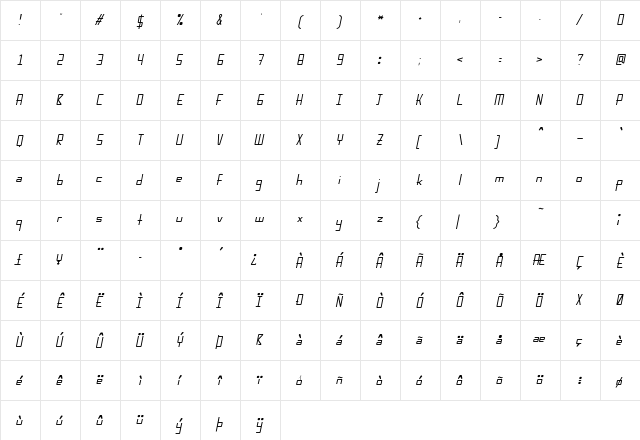
KarpowThin Italic Font Preview
Design Context for KarpowThin Typeface
KarpowThin offers clean, dependable letterforms without strong stylistic allegiance, making it a practical choice for designers who need flexibility. Its italic angle brings a sense of urgency and motion to the letterforms. The delicate stroke weight brings airiness and refinement to layouts.
Pro Tip: Try KarpowThin for annotation and caption copy alongside an upright companion — the contrast in angle creates a dynamic but ordered typographic system.